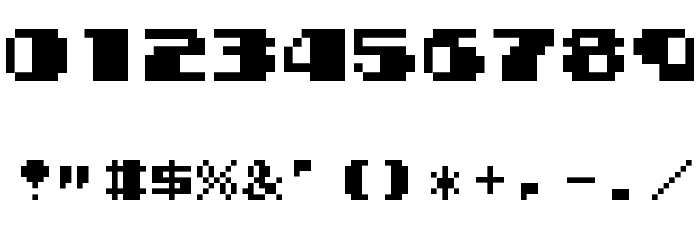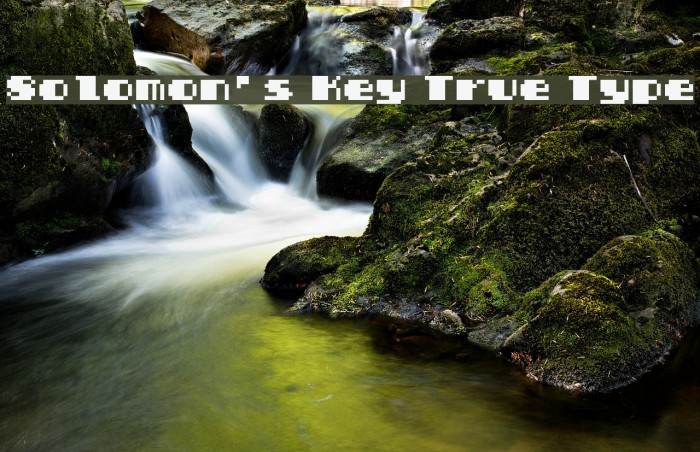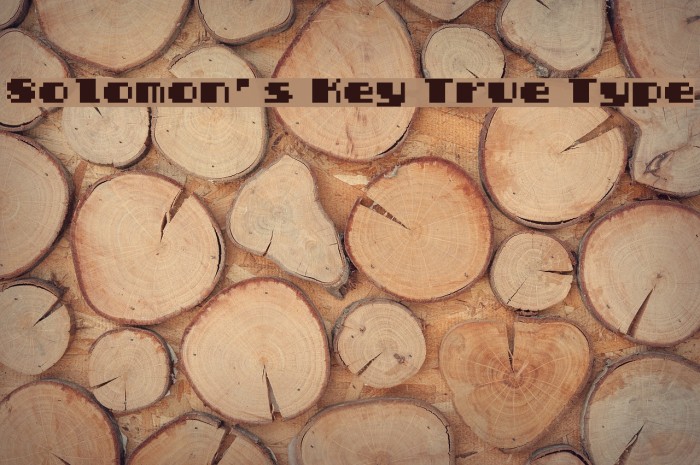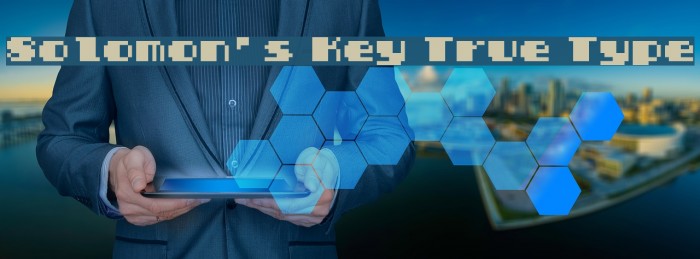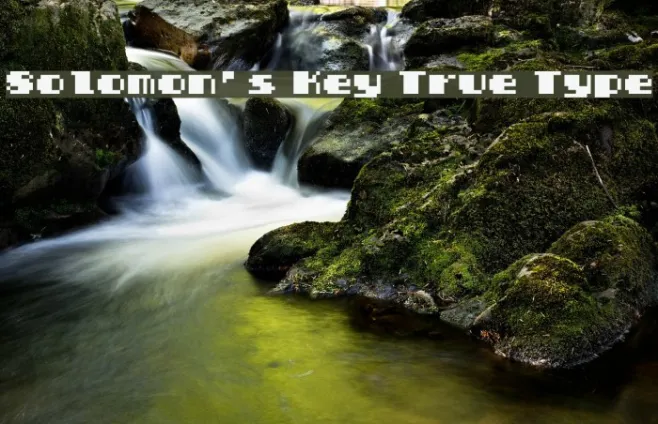
Solomon's Key True Type Font
This font features a bold, pixelated style reminiscent of retro video games and digital displays. Each character is constructed with a blocky, geometric design, giving it a distinctly digital and vintage feel. The uppercase and lowercase letters maintain a consistent width, contributing to a monospaced appearance. The numerals and special characters follow the same pixelated pattern, ensuring uniformity across all glyphs. This font's unique style is both eye-catching and nostalgic, making it suitable for projects that aim to evoke a sense of classic gaming or digital aesthetics.
A bold, pixelated font with a retro digital style.
- Proposed Projects: Ideal for retro video game designs, digital-themed posters, and nostalgic branding projects.
- Overall Style: Vintage